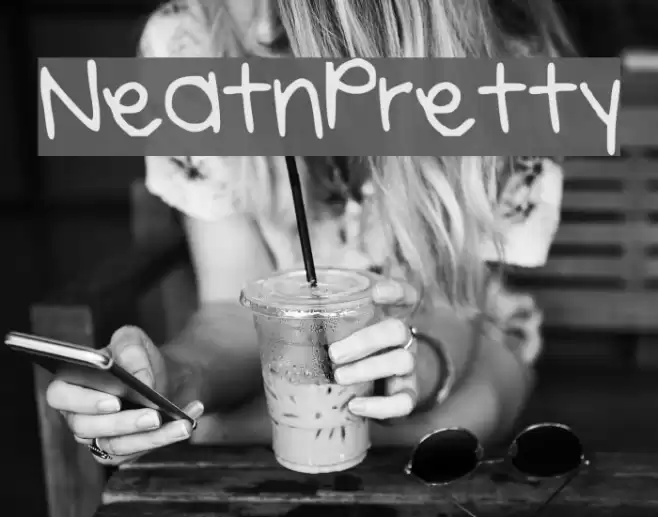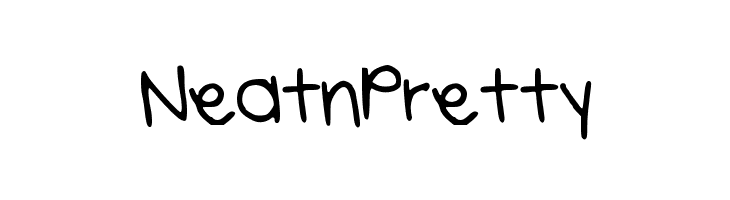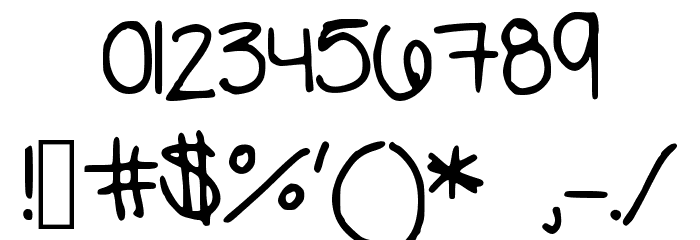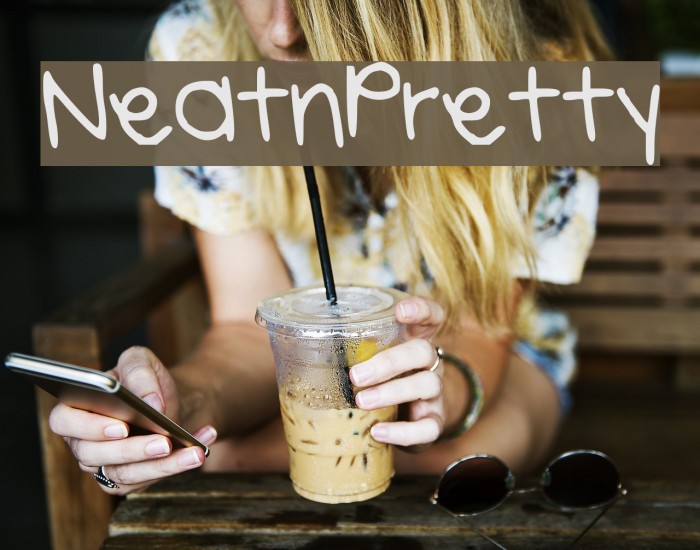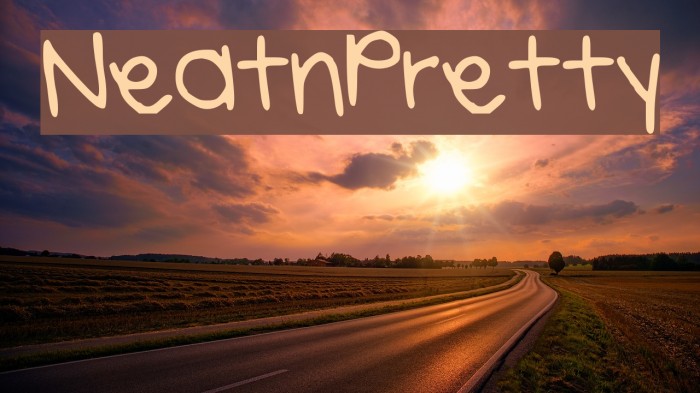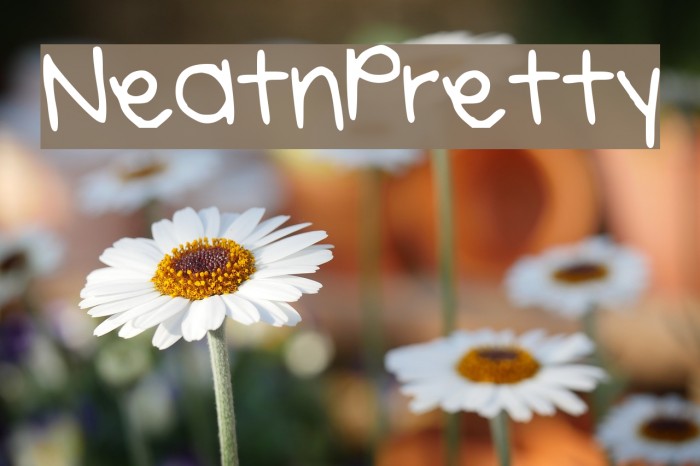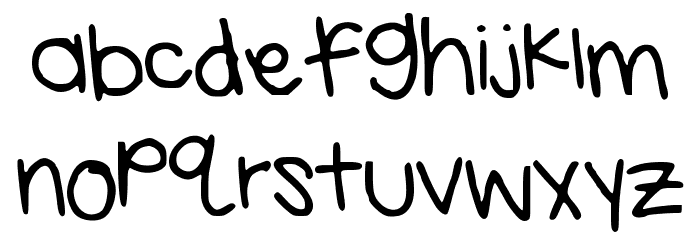
Neatnpretty Font
Neatnpretty Description
This playful and casual font features a handwritten style with a friendly and approachable appearance. The characters are rounded with a consistent stroke width, giving it a uniform and cohesive look. The uppercase and lowercase letters maintain a similar height, enhancing readability while adding a touch of whimsy. The numbers and special characters are designed to match the overall style, making it versatile for various applications. Its informal nature makes it suitable for projects that require a personal touch, such as invitations, greeting cards, and children's books.
A playful, handwritten font with rounded characters and consistent stroke width from Uncategorized fonts.
- Proposed Projects: Ideal for invitations, greeting cards, children's books, and casual branding.
- Overall Style: Casual
- Use Case: Headlines, Informal text, Branding